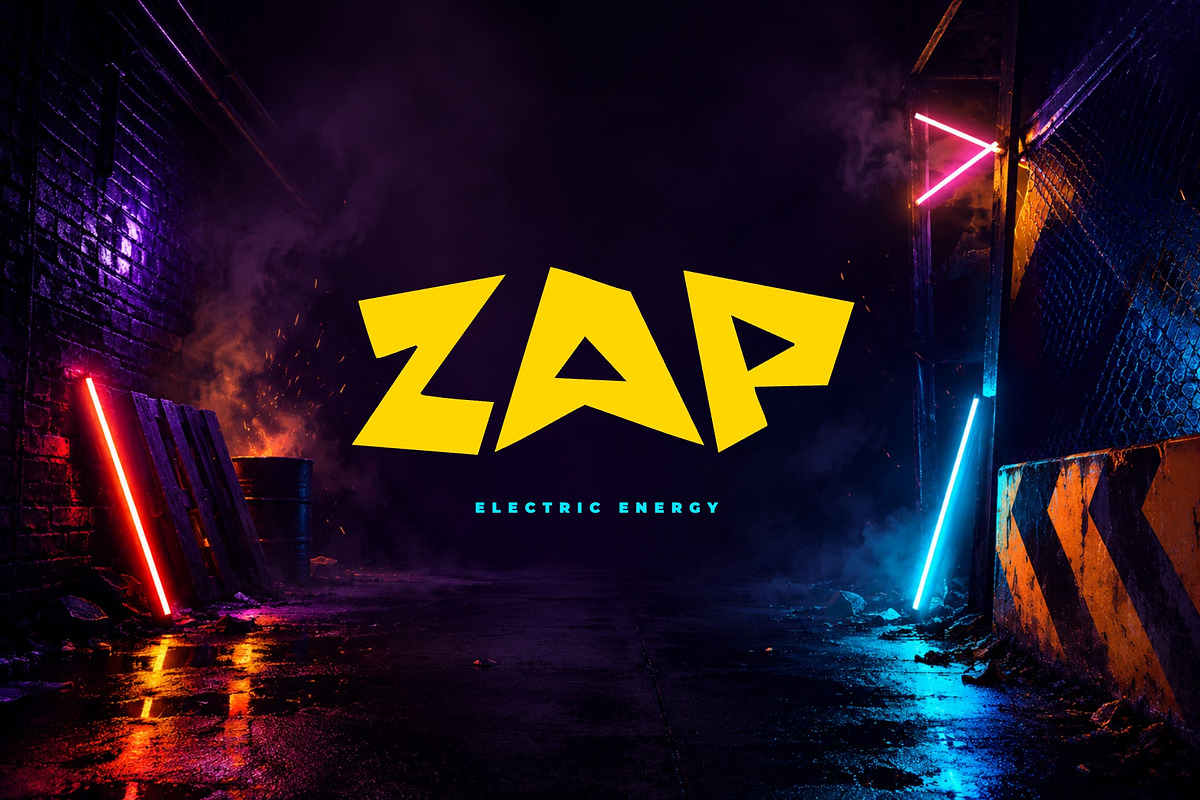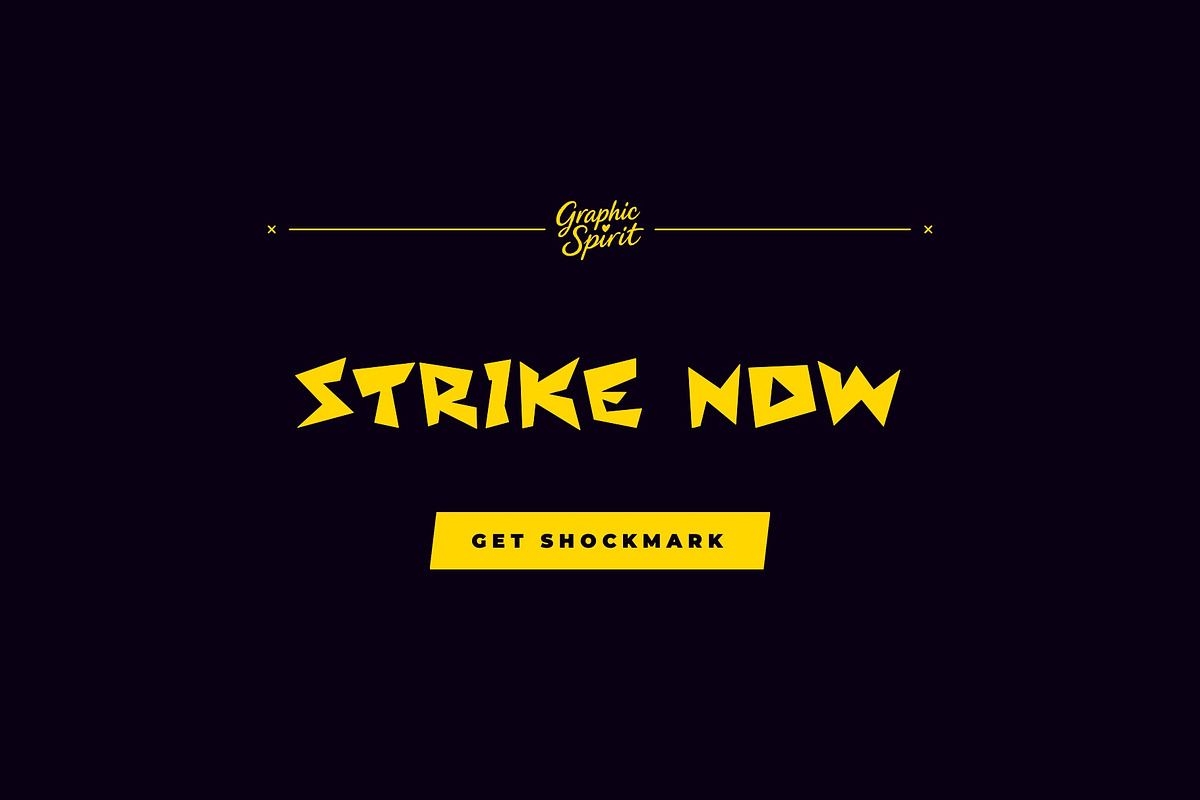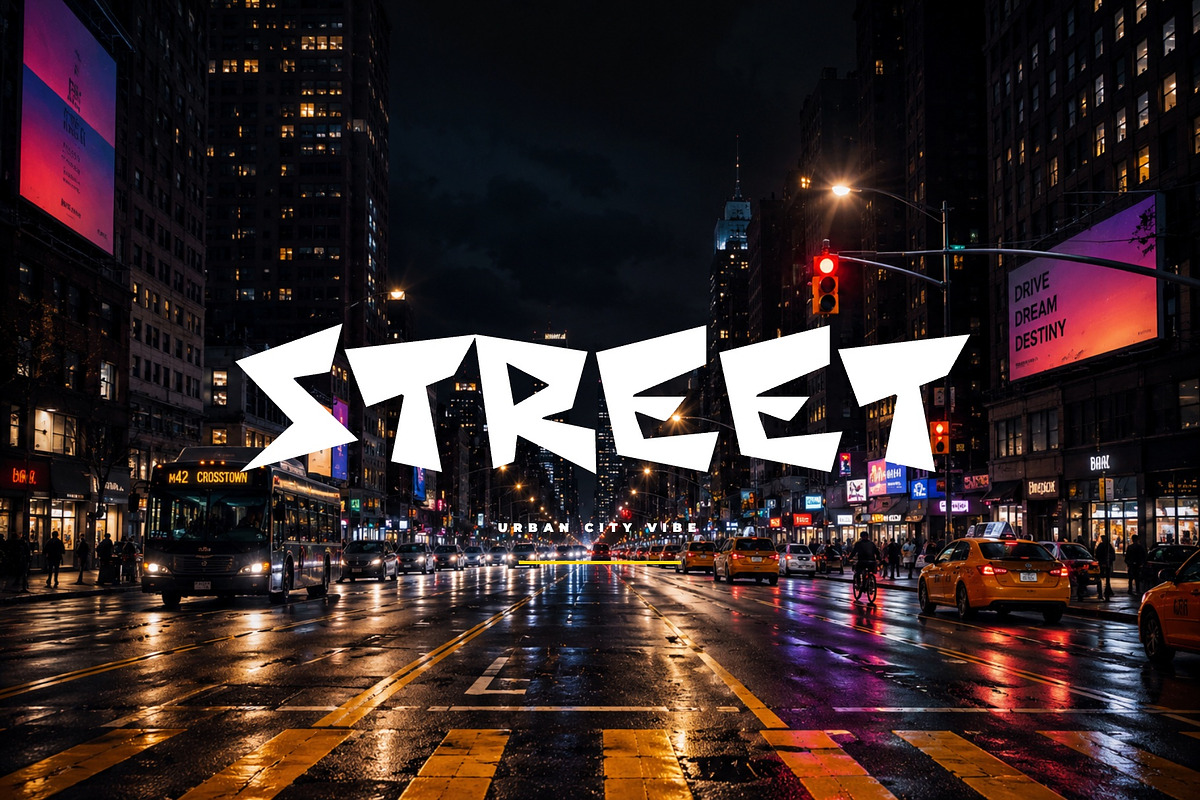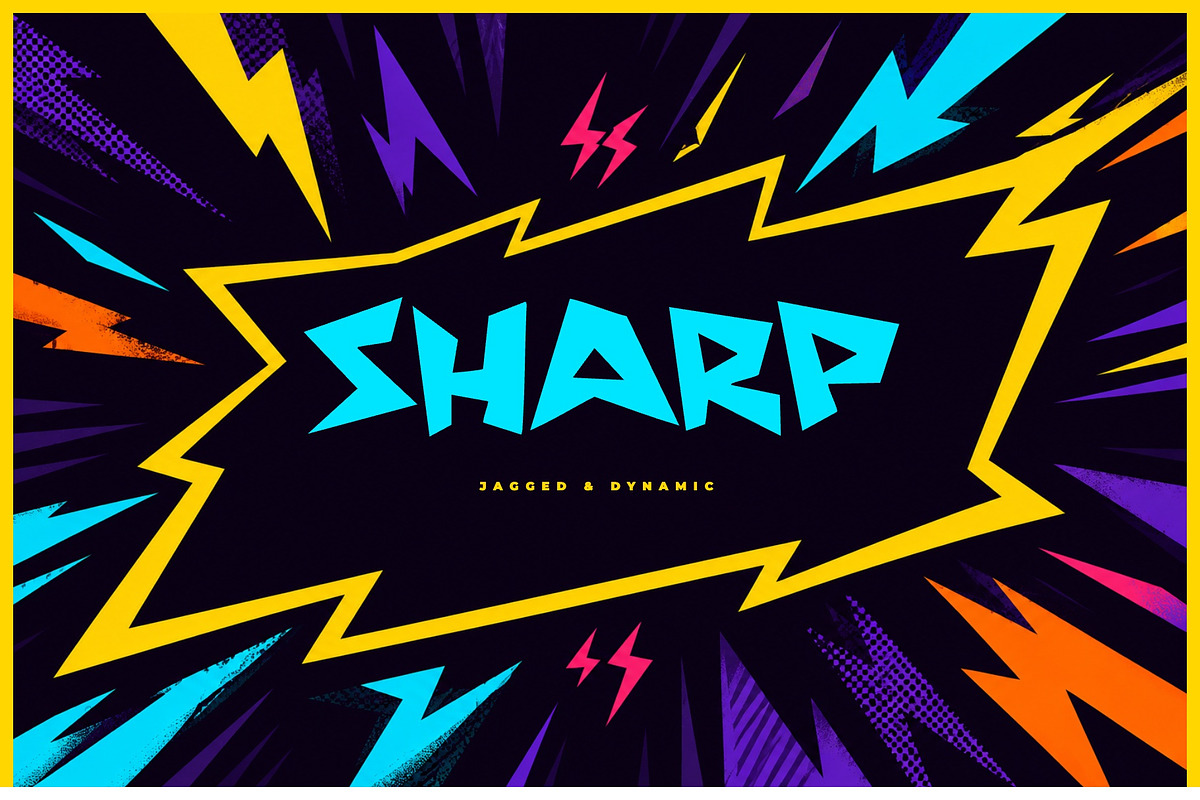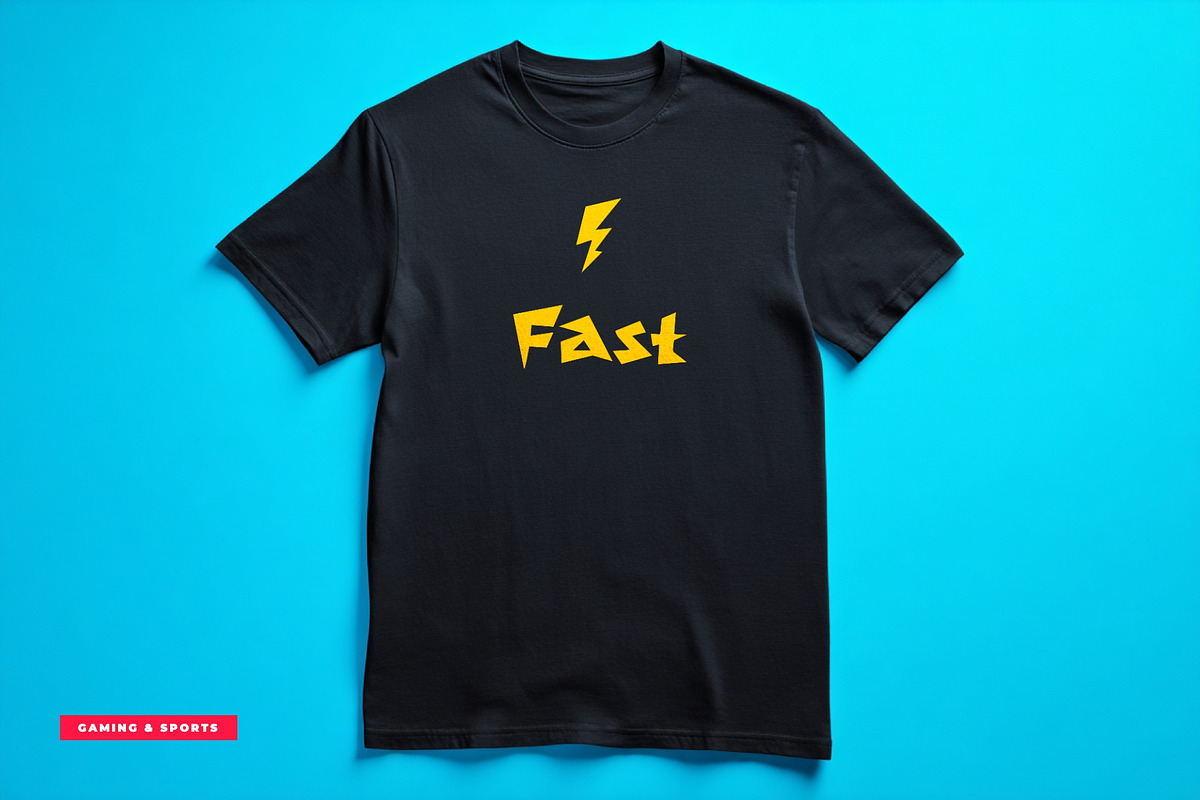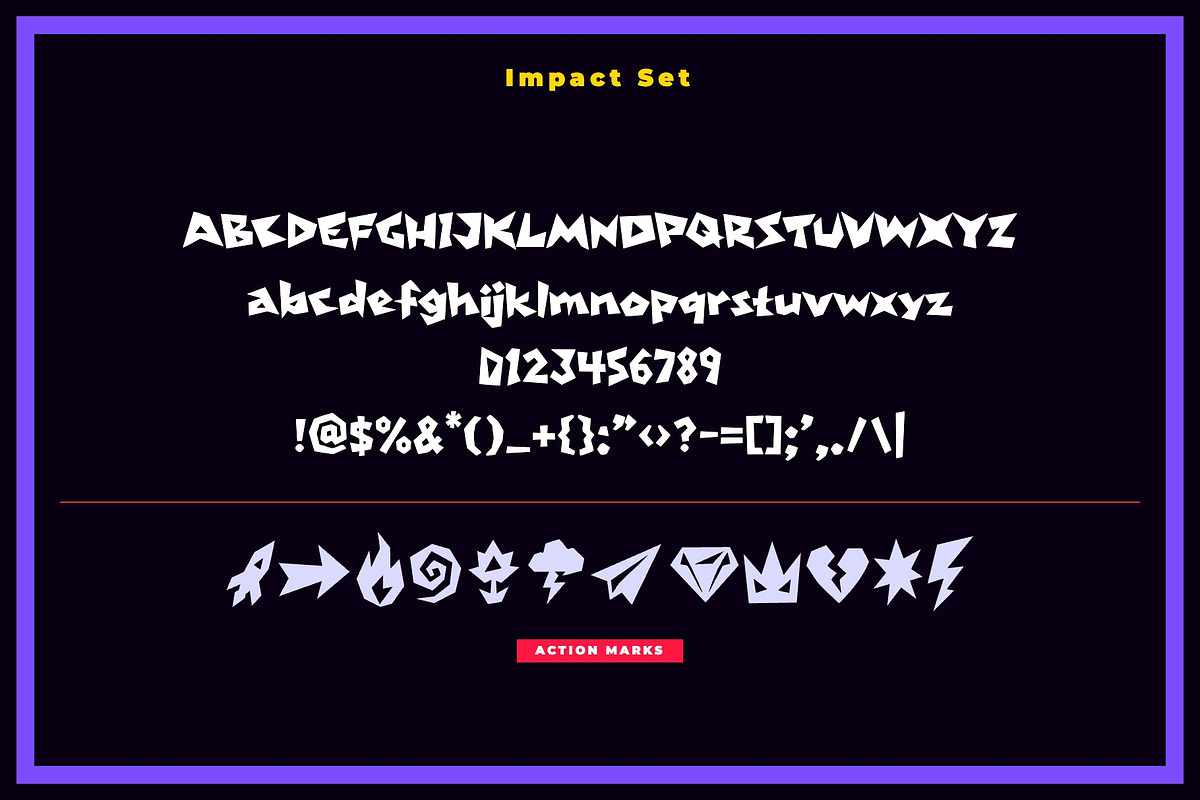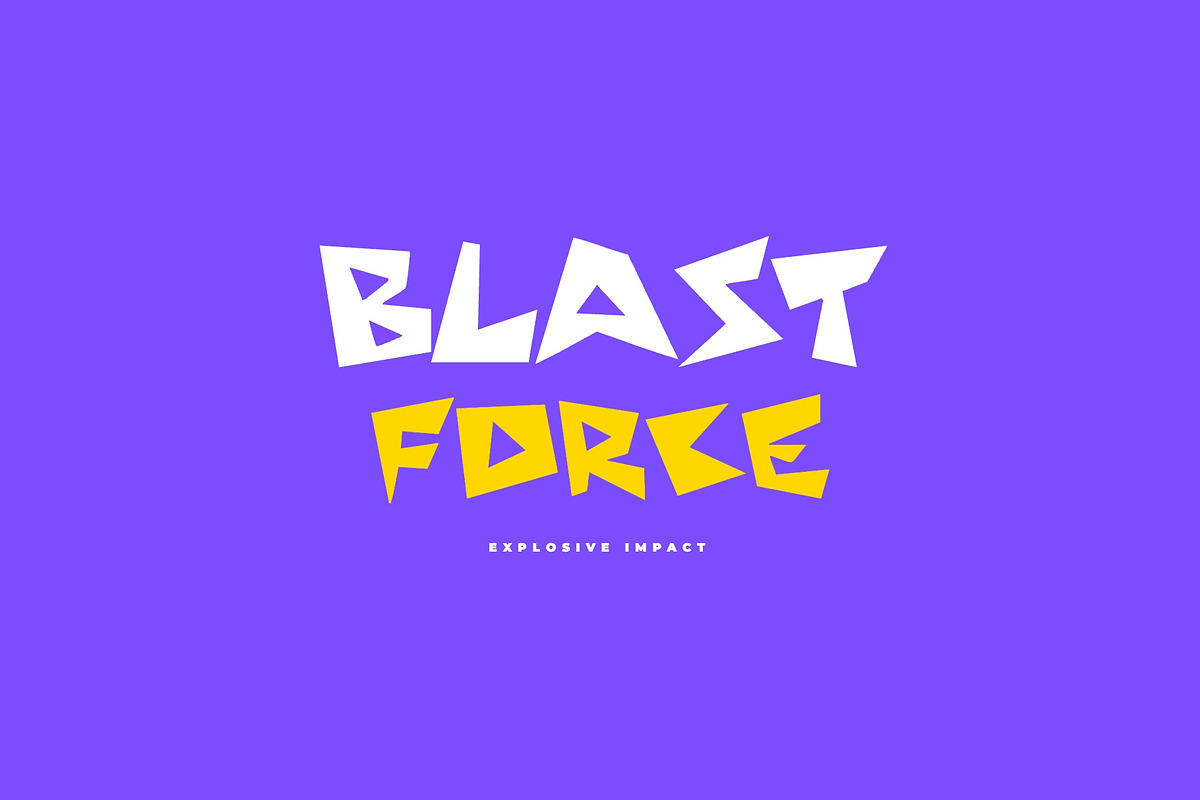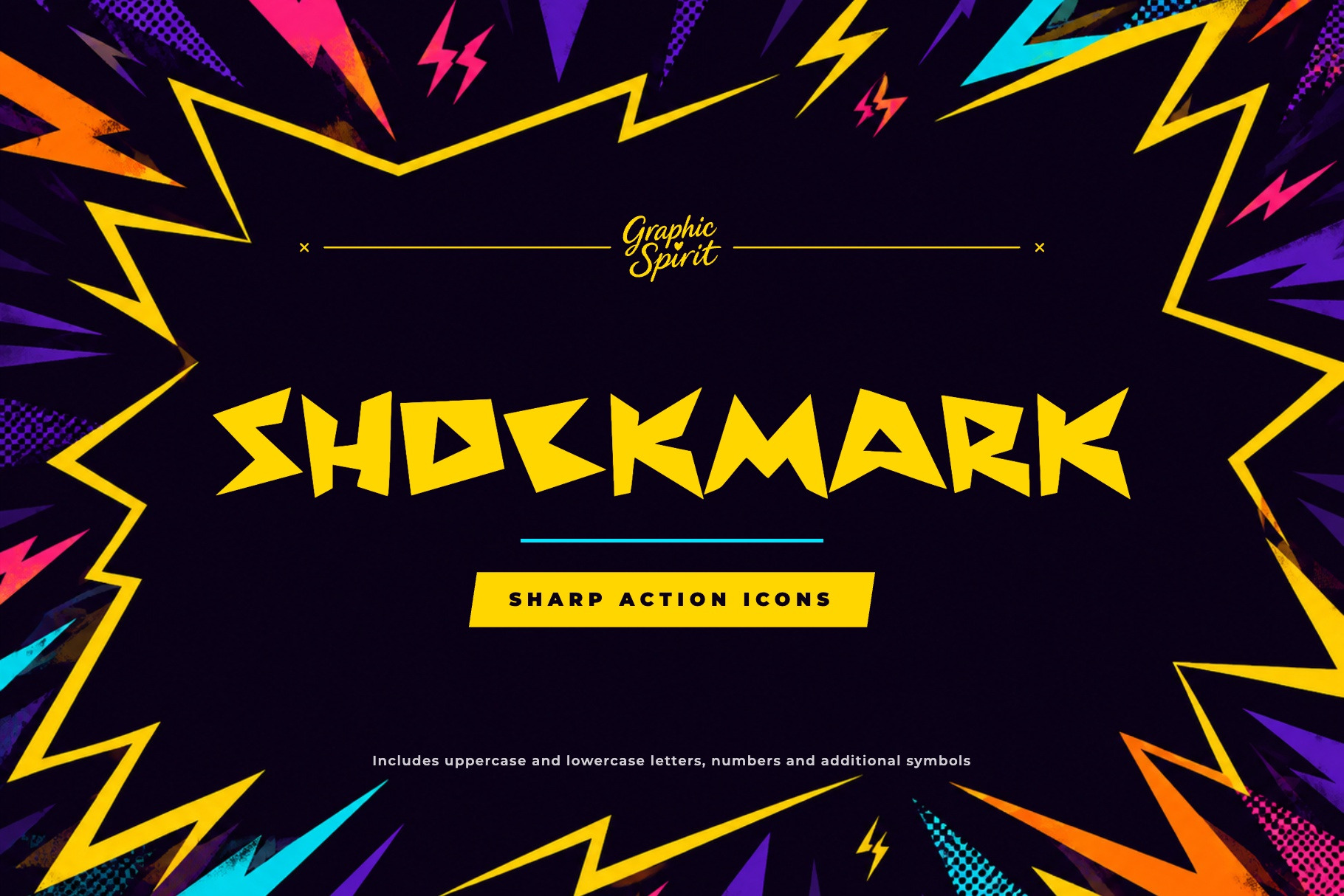
Shockmark Font
✨ Shockmark is a sharp action display font with electric contrast, jagged movement, and loud street-sport energy. It was created for designers, makers, and small brands who need expressive typography with a clear visual personality.
🎨 Shockmark works beautifully for gaming graphics, sports branding, street posters, action logos, event flyers, music covers, urban packaging, dynamic headlines. The style is strong enough for headlines and product names, but still friendly enough for approachable branding, packaging, posters, labels, social graphics, and creative layouts.
💛 The typeface has a distinct display rhythm, so even short words feel designed and intentional. It is a useful choice when you want a project to feel crafted, memorable, and visually specific.
Best for:
- ⚡ Gaming graphics and action titles
- 🏆 Sports branding and team visuals
- 🏙️ Street posters and urban flyers
- 🔥 Music covers and bold event graphics
- 💥 Sharp high-energy typography
Includes uppercase and lowercase letters, numbers, punctuation, and additional symbols shown in the previews.